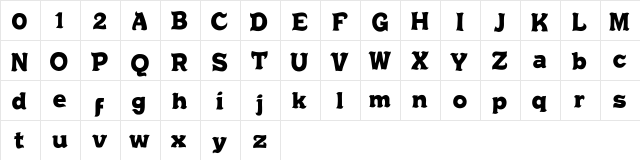
Chrusty Rock Chrusty Rock
Design Context for Chrusty Rock Typeface
Chrusty Rock is a composed and adaptable typeface that performs quietly and consistently across a wide range of design contexts.
Pro Tip: Pair Chrusty Rock with a font of contrasting weight or personality to build a more expressive typographic hierarchy.